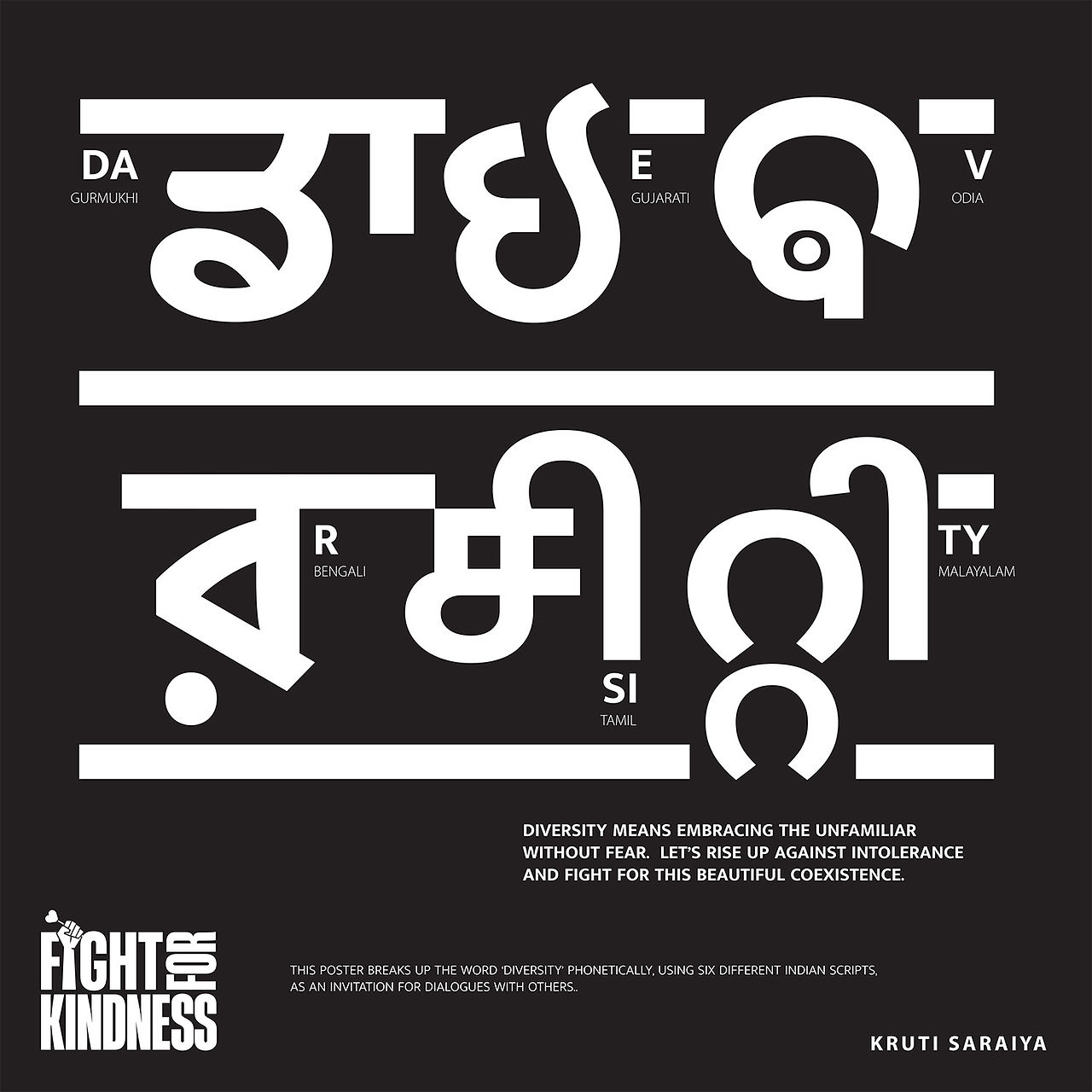
Typography, Scripts and Dialects: Languages of Identity
Italian is a Romance language that developed from a common root, but over the centuries it has given rise to a wide array of local varieties. These varieties, commonly referred to as dialects, are the result of the historical, cultural, and geographical stratification of different regions of the peninsula. With the unification of Italy in the second half of the 19th century, a standard shared language gradually took hold, leading many to predict that dialects would disappear within a few generations.
In the 1960s, writer and poet Pier Paolo Pasolini claimed that Italian was becoming the sole and definitive language of Italians, destined to replace all local linguistic varieties. Yet, decades later, we now know that dialects have not only survived, but continue to thrive — albeit in different forms and in new contexts.
Today, dialects survive — and in some cases, grow stronger — thanks to a wide range of initiatives: cultural projects, theatre and film productions, publications, art installations, popular events, and increasingly, graphic and typographic projects. A noteworthy example is the award-winning film Gomorra (2008), later adapted into a TV series (2014–2021), based on Roberto Saviano’s book of the same name, with much of the dialogue in Neapolitan dialect. In many regions, people still use dialects to describe and relate to their local context. And in family settings or among friends, in informal environments, standard Italian often gives way to a more intimate, authentic form of expression.
In this context, the use of dialects is not just a linguistic matter — it is a form of
cultural resistance. It reflects a desire to affirm a local identity, to feel part of a community, to speak in a way that feels like home. It speaks to a deeply human need: the need to belong.
Serbian Cyrillic / Slavic languages that use Cyrillic
This phenomenon is by no means unique to Italy. All over the world, alongside official languages, there are local varieties — be they dialects, minority languages, or vernacular forms — that tell the story and soul of a place. In India, for example, standard Hindi coexists with dozens of regional languages. In the Arab world, every country — and often each city — has its own variant of Arabic. In China, Mandarin is the official language, but many people speak other languages daily, such as Cantonese or Shanghainese. In Spain, Catalan, Basque, and Galician are spoken alongside Spanish. Every linguistic variety is a distinctive marker, a cultural code, a living archive of collective memory.
Indian Indic Scripts & Languages
These local forms of language, like Italian dialects, share a fundamental function with alphabets and writing systems around the world: they transmit identity. In many cases, a local language or script tells you more about who someone is than any official document could. To speak or write in dialect, therefore, is not only to communicate — it is to express oneself, to assert one’s existence.
From this perspective, typography too becomes an extension of this language of identity. The typeface one chooses is never neutral: it speaks, evokes, suggests a tone, an intention, a culture. Typography can evoke familiarity, intimacy, and belonging. If you want to convey a message in dialect, choosing a typeface that is simple, readable, and “welcoming” can enhance its closeness and authenticity.
In this sense, typography and dialects are two sides of the same process: the way we choose to say something is part of what we are saying. Both the visual and the linguistic levels work together to create a message that is also a cultural statement.
A significant example of the value linguistic variation can bring to a language is the “Voices” project, launched by the BBC in 2005. It was one of the largest media campaigns dedicated to documenting the linguistic diversity of the United Kingdom. Through radio programs, television segments, and digital content, the project collected hundreds of audio testimonies of local voices, ranging from the Scottish Highlands to Wales, and from the urban accents of London, Liverpool, Birmingham, and many other areas. It became a living archive, showing how every variant — even within a dominant language — is a carrier of culture, history, and identity.
The project's goal was clear: to demonstrate that every linguistic variant — accent, dialect, local expression — is an expression of the cultural, social, and personal identity of its speakers. The initiative engaged schools, universities, local communities, and millions of British citizens, gathering perspectives on how language is perceived and used in everyday life.
In the nonprofit project Fight For Kindness, which has promoted messages of kindness through typography for four years, we’ve observed a recurring and meaningful trend: even within an international initiative, there is a strong need for proximity. People want to communicate with those around them using words, symbols, and languages that are immediately recognizable, familiar, rooted in their context. It’s a shared, cross-cultural need that cuts across geographic boundaries.
Thai / Baybayin Script / Japanese Fight For Kindness 2024 submissions
Some of the Fight For Kindness posters clearly illustrate how the local dimension often complements the global one, both typographically and linguistically. The results are a combination of writing systems that visually reflect the intersection of proximity and universality.
And today, more than ever, we need to listen to those voices that speak with an accent, that write with unusual strokes, that tell stories beyond the margins of the standard. Because it is there — in the gentle strength of differences — that the future of communication lies.